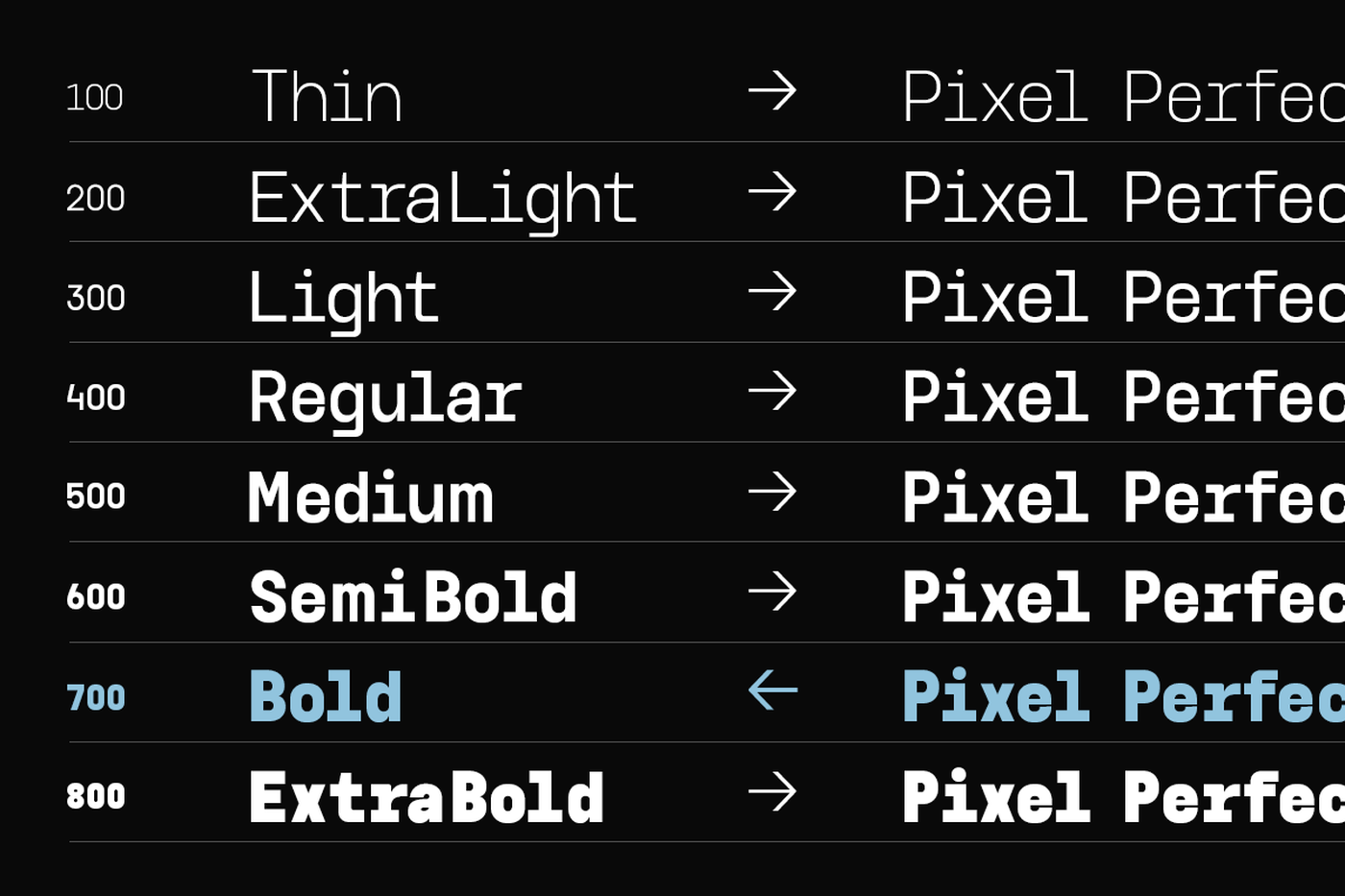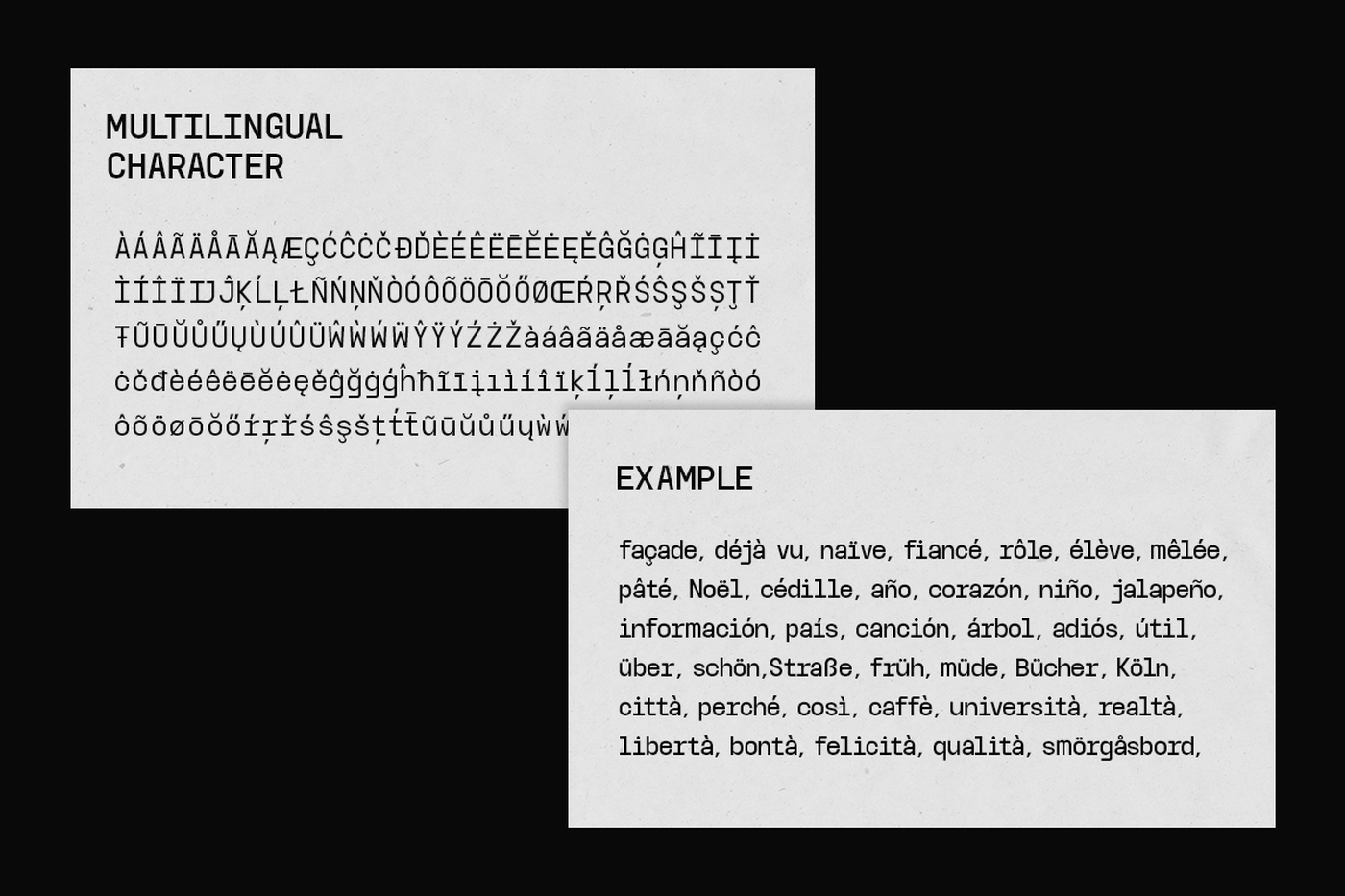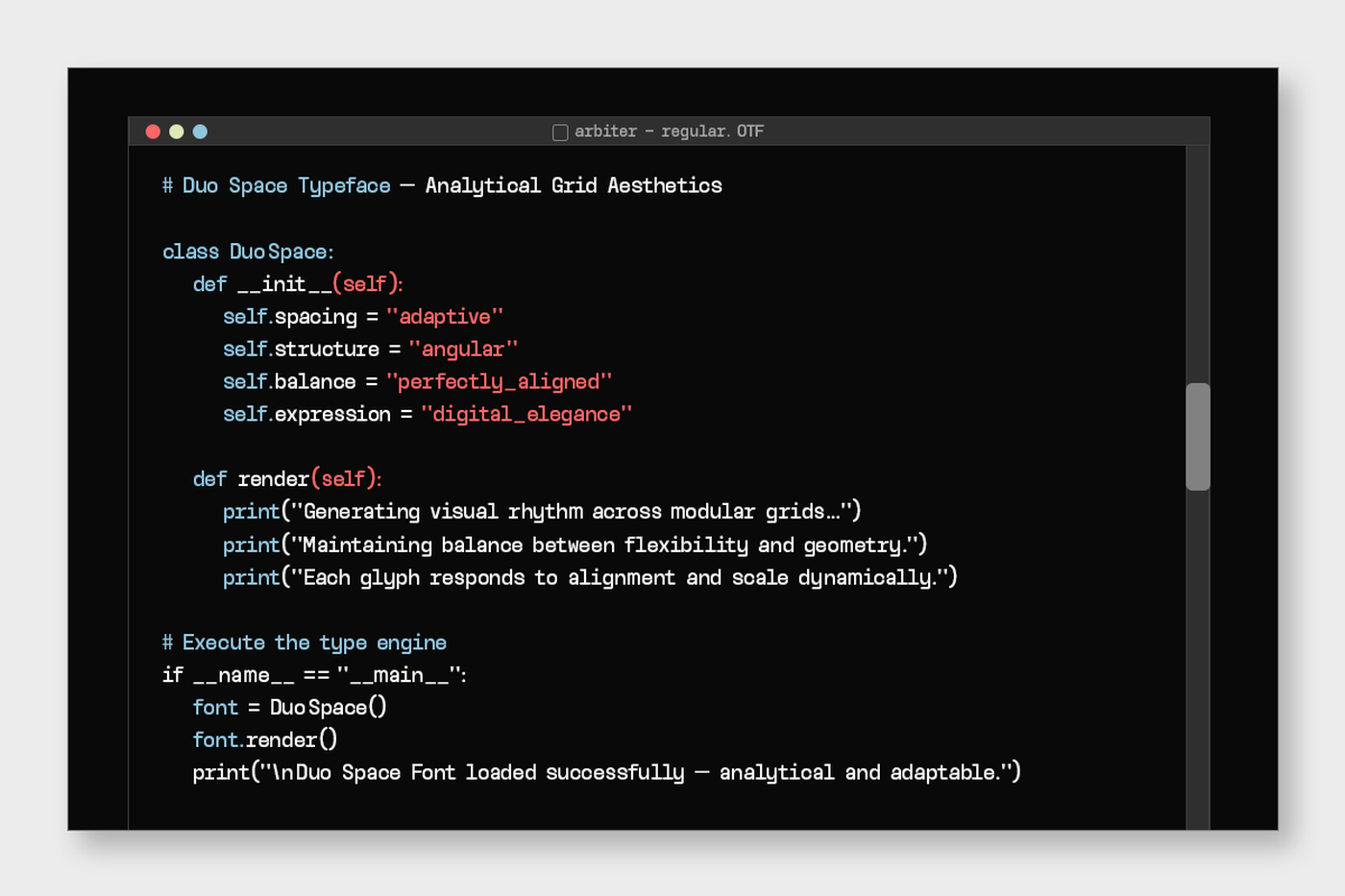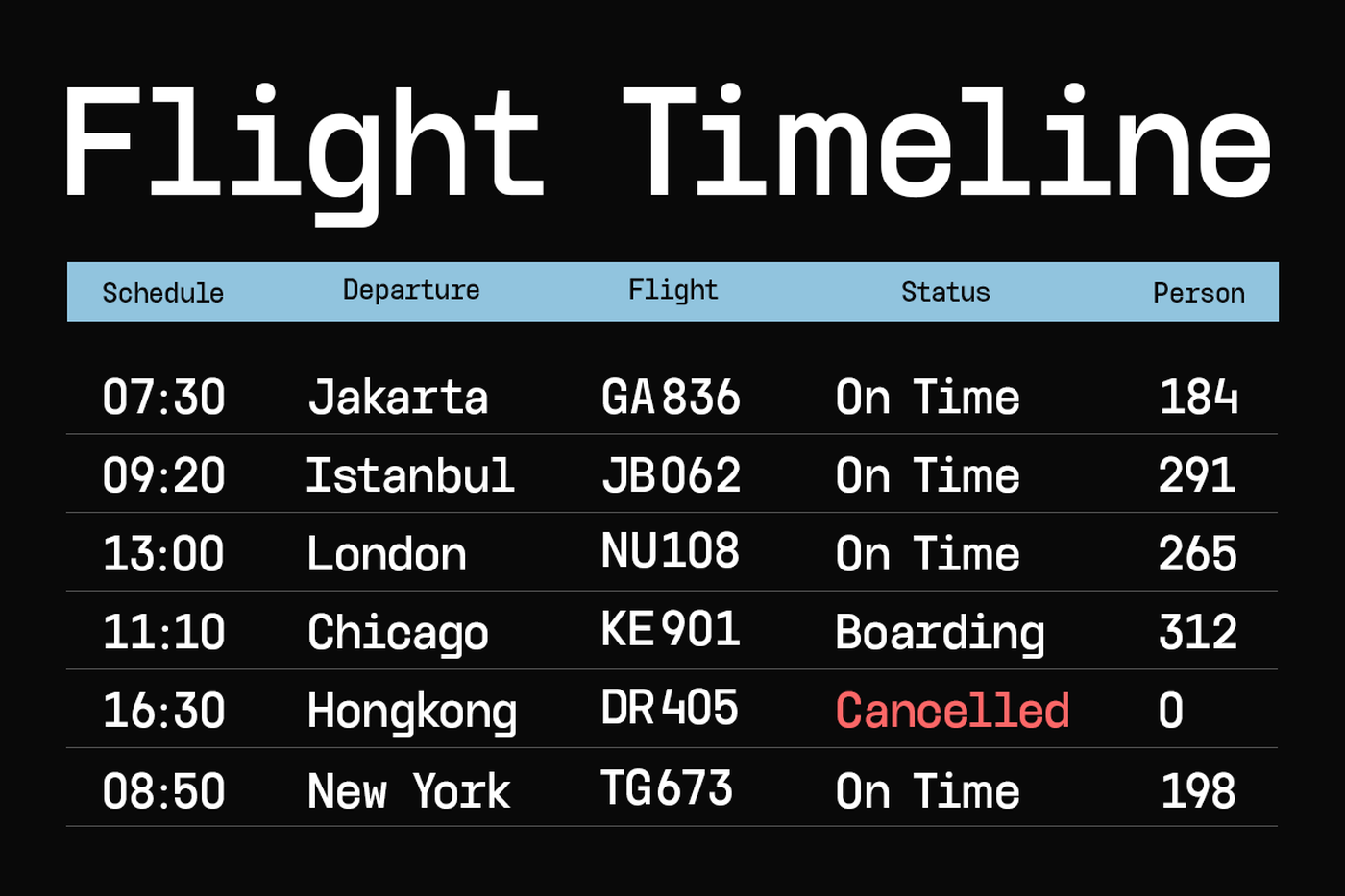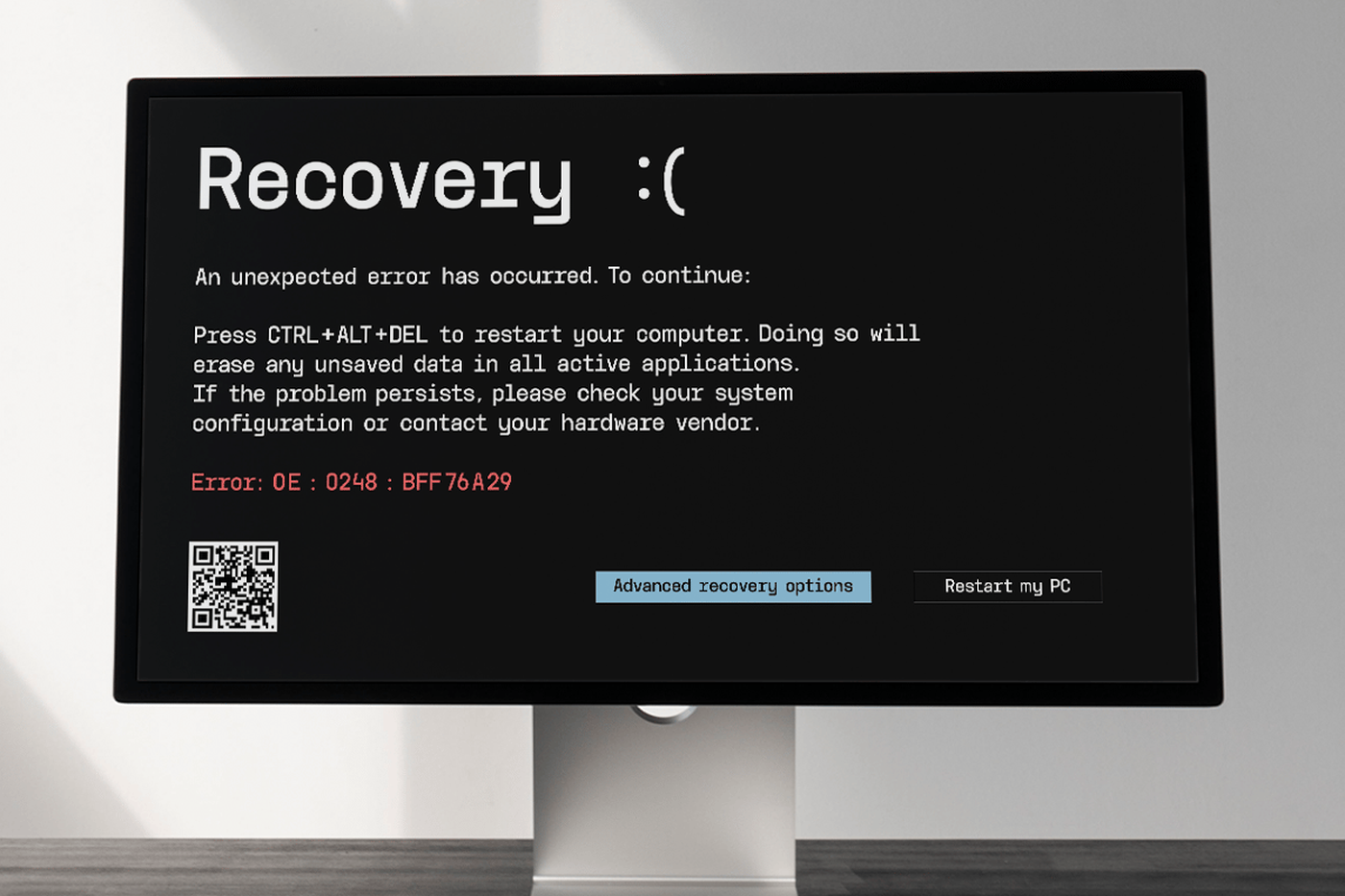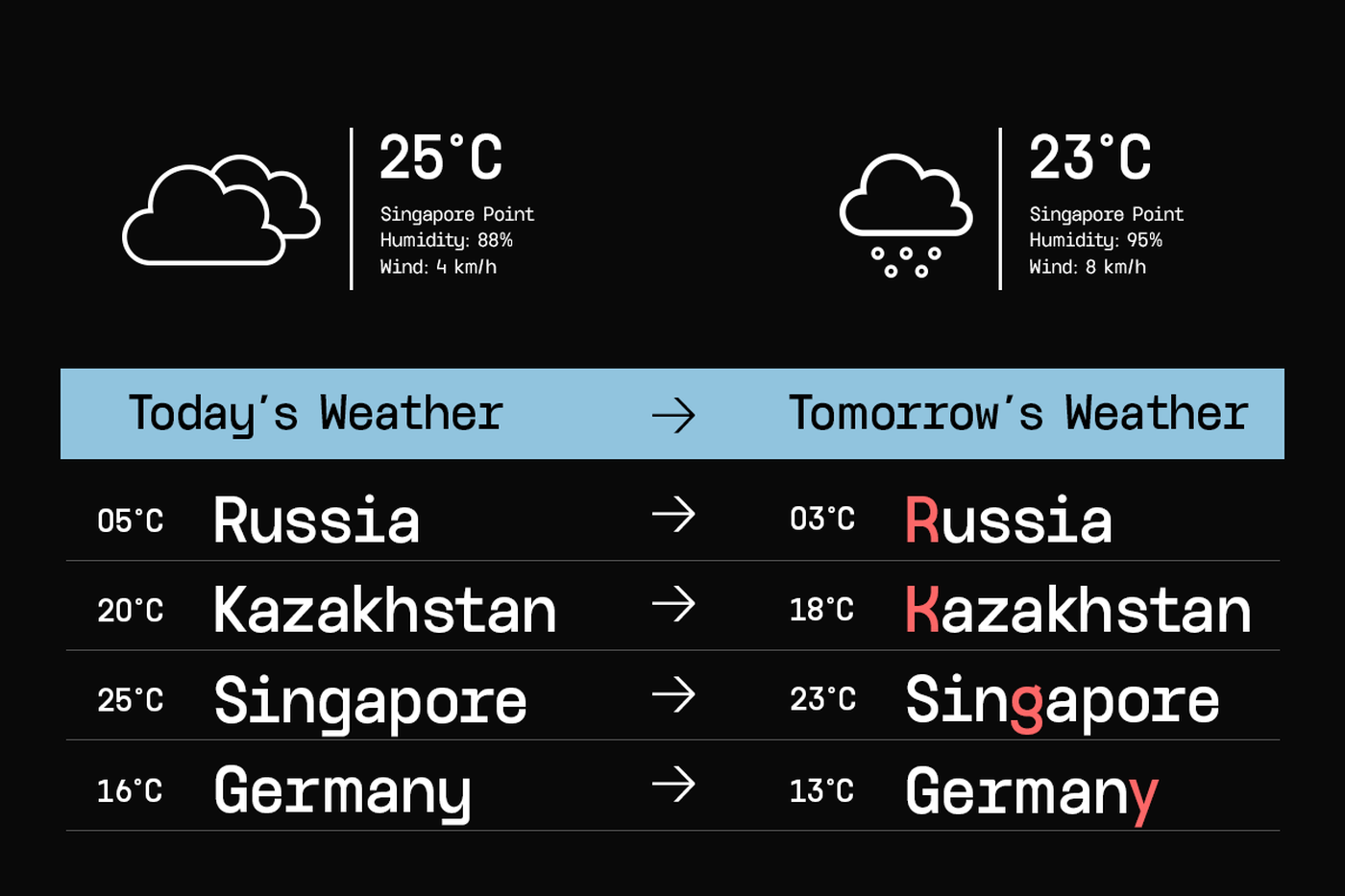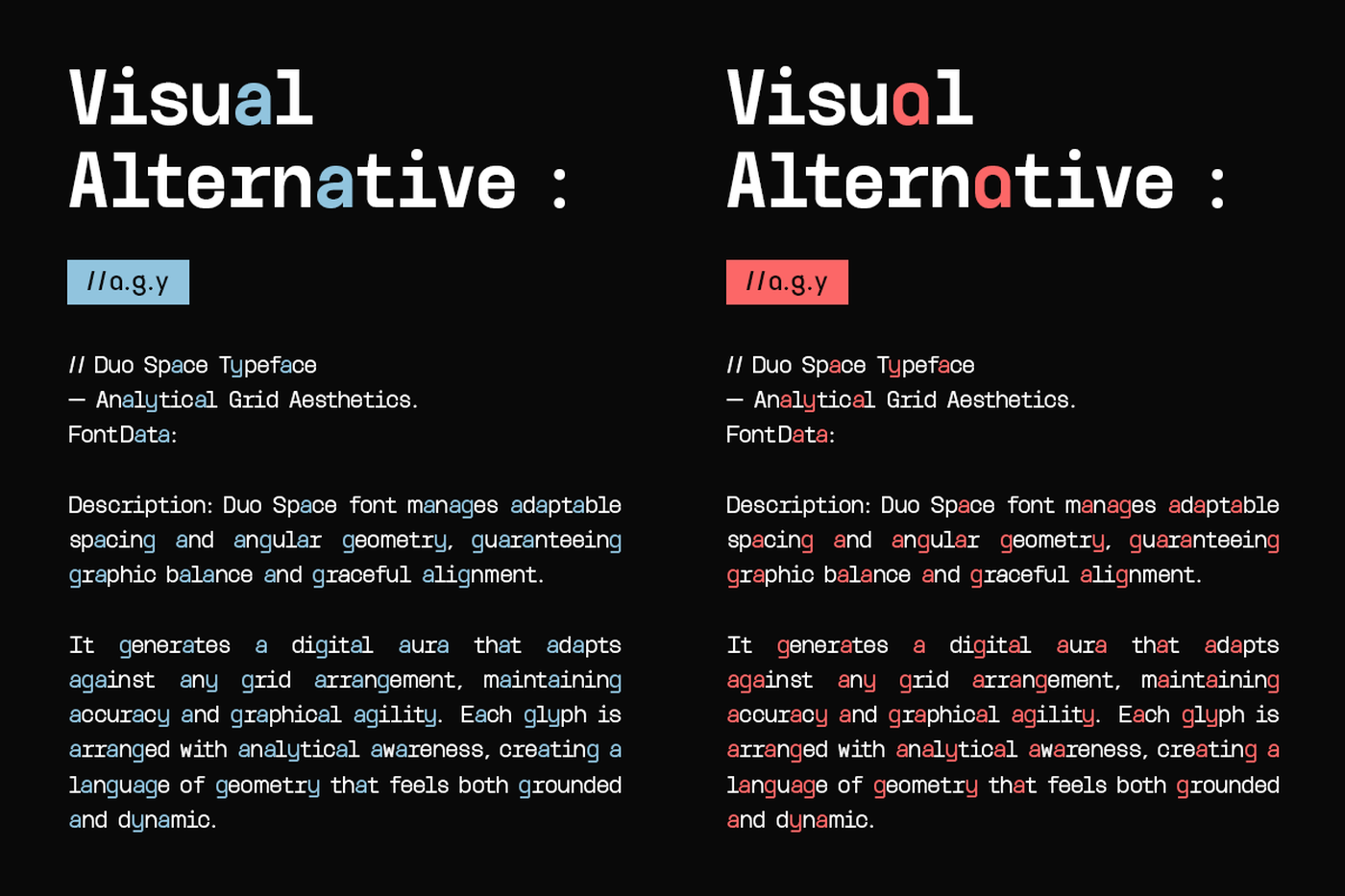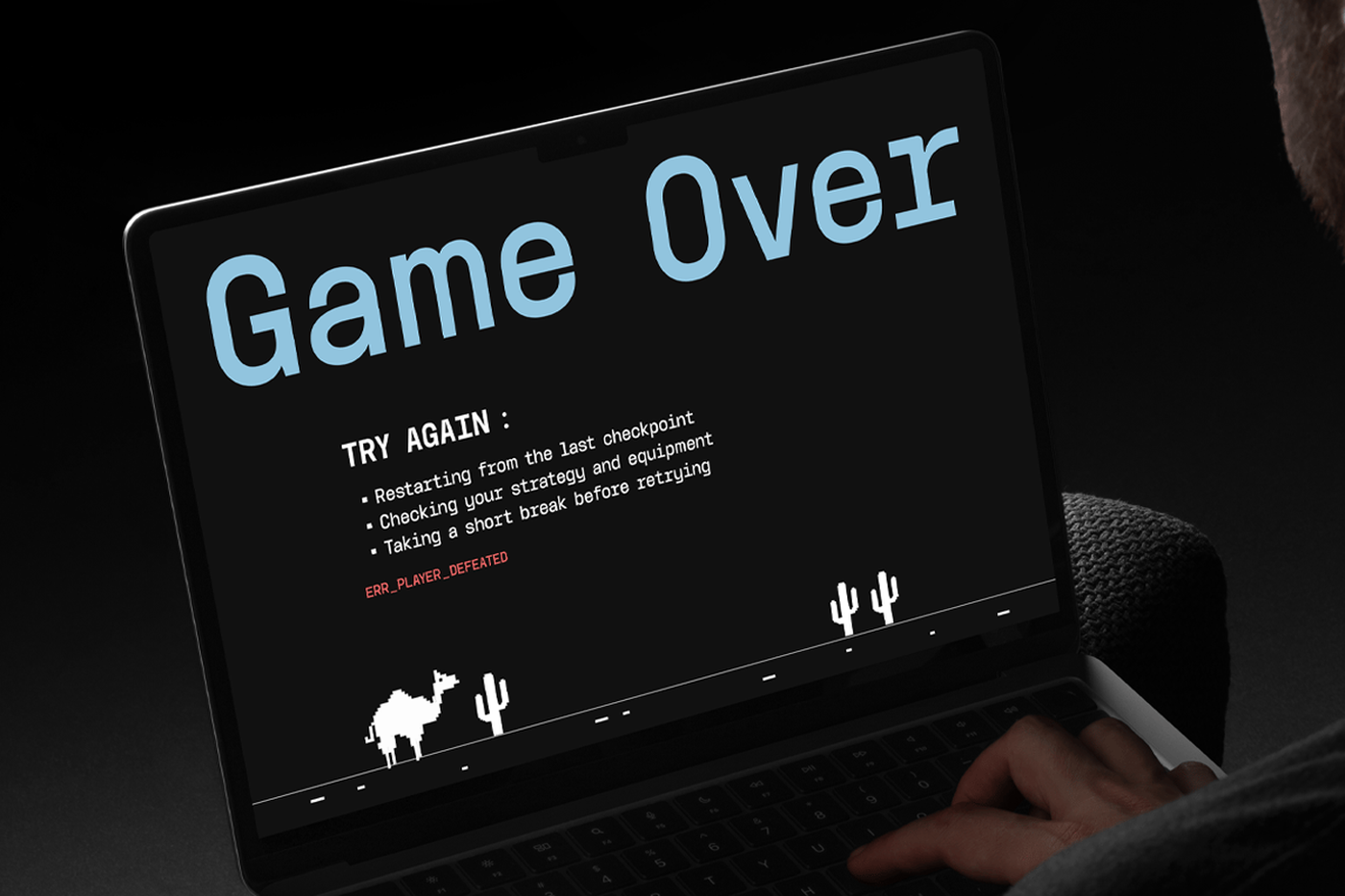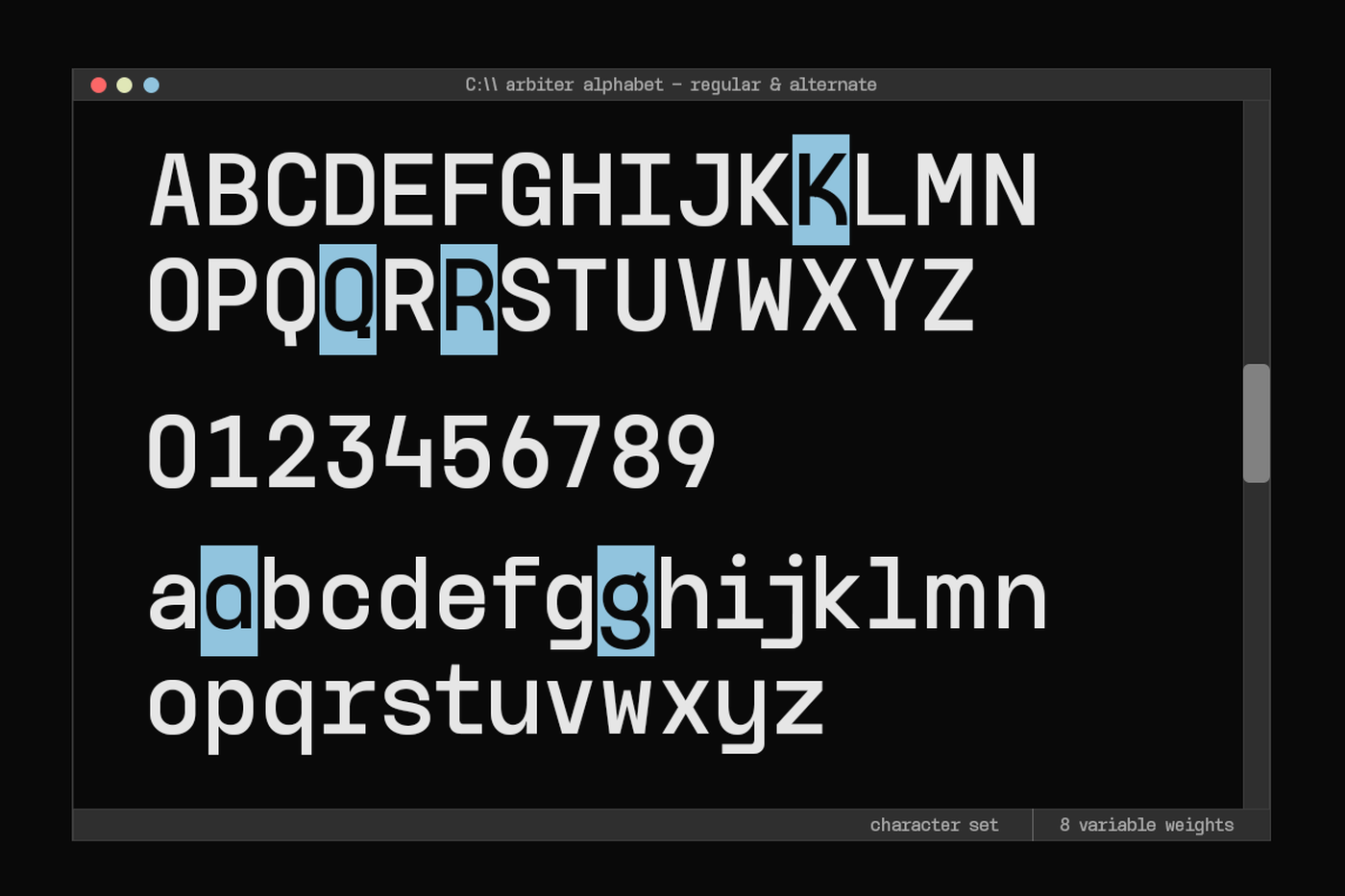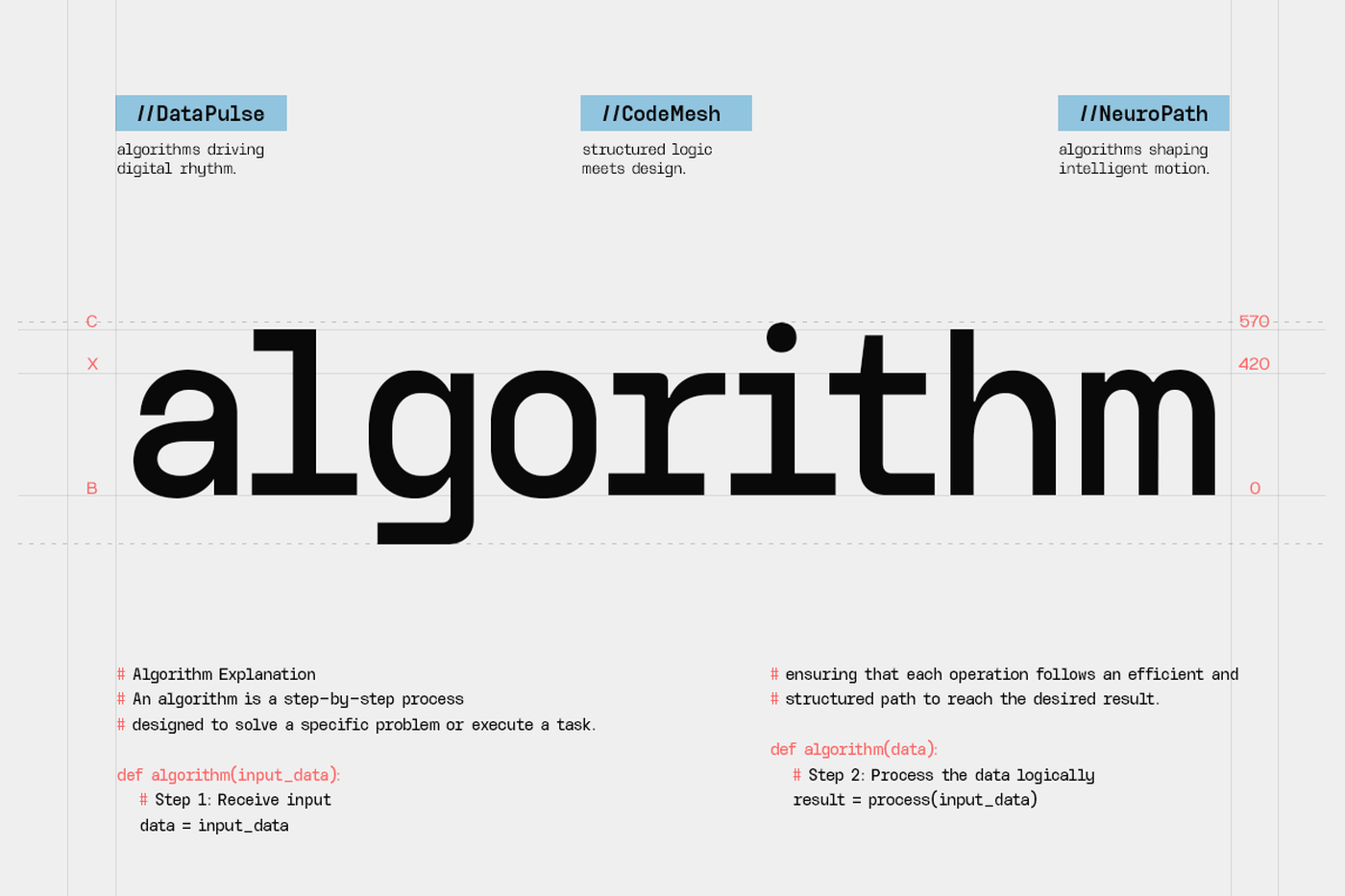
Arbiter - Modern Monospace Font
Arbiter is a modern monospaced typeface built on precision, structure, and clarity. Designed for designers and developers alike, it blends the technical spirit of coding fonts with a refined sense of balance and style. Every character is crafted with consistent spacing and geometric logic, giving your text a clean, organized, and futuristic appearance. Perfect for branding, tech interfaces, editorial design, and creative coding projects, GC Arbiter delivers a sense of discipline and modernity without losing its visual charm. Its logical construction and uniform rhythm make it highly readable while maintaining a distinctive, contemporary personality.
Designer: Glyphonic
Font: Arbiter